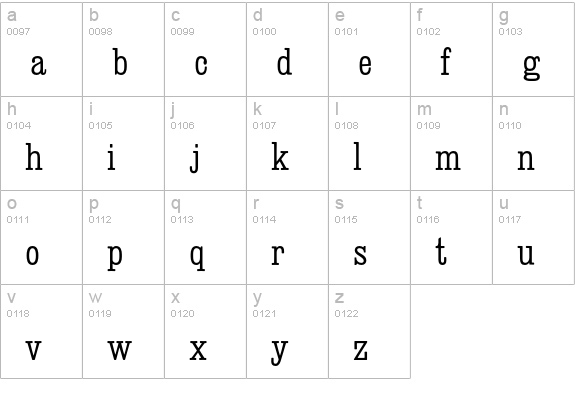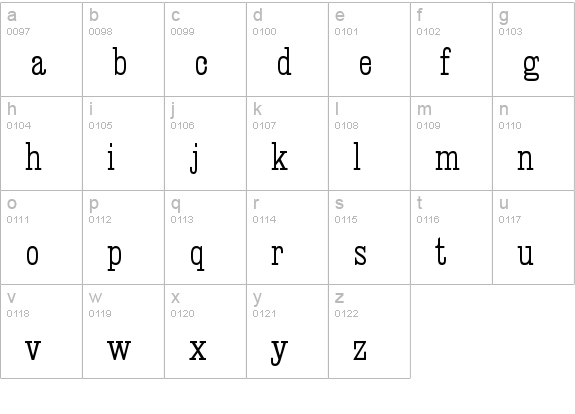
Deadwood Singlewide Light Font Details
Deadwood Singlewide Light is a refined, elegant variant in the Deadwood typeface family \xE2\x80\x94 well suited to elegant body text, refined sub-headings, and luxury branding.
Deadwood Singlewide Light font is a versatile and modern typeface that exudes elegance and sophistication. With its clean lines and sleek design, this font is perfect for a wide range of design projects, from branding and advertising to web design and print materials. The Deadwood Singlewide Light font is not only stylish and eye-catching but also incredibly easy to read, making it a great choice for both headers and body text. Its sleek and minimalistic aesthetic gives any project a contemporary and professional look. Best of all, Deadwood Singlewide Light font is available for free download at FontsMarket.com, making it accessible to designers of all levels. Whether you're working on a personal project or a client's commission, this font is sure to elevate your design and make a lasting impression.